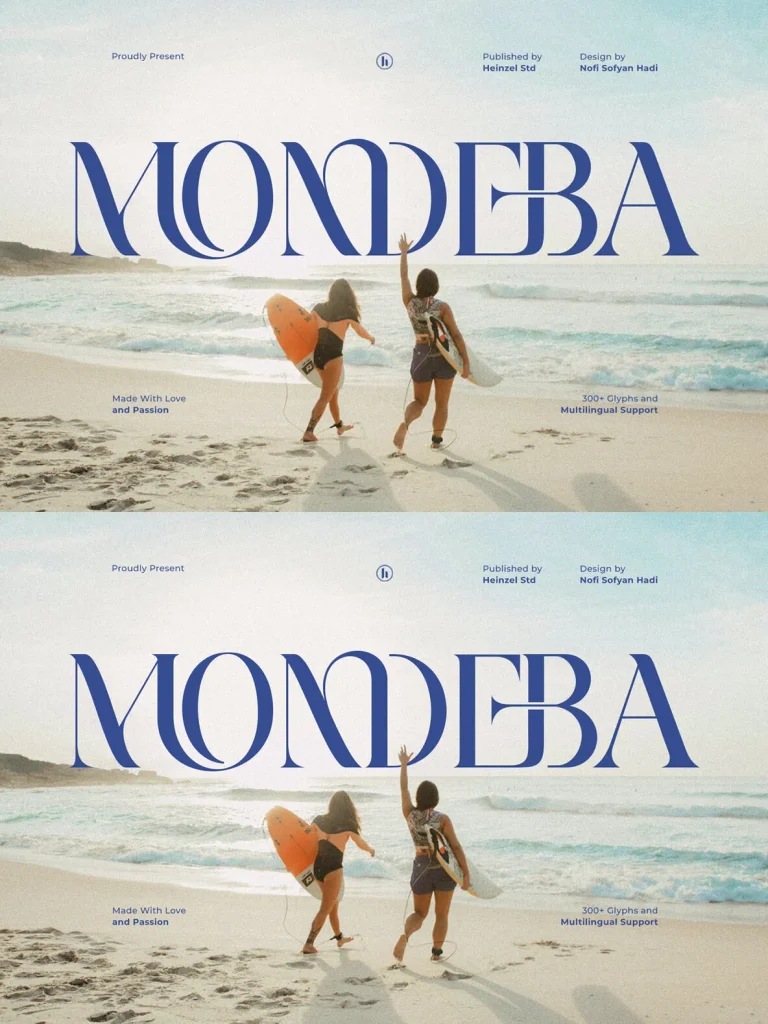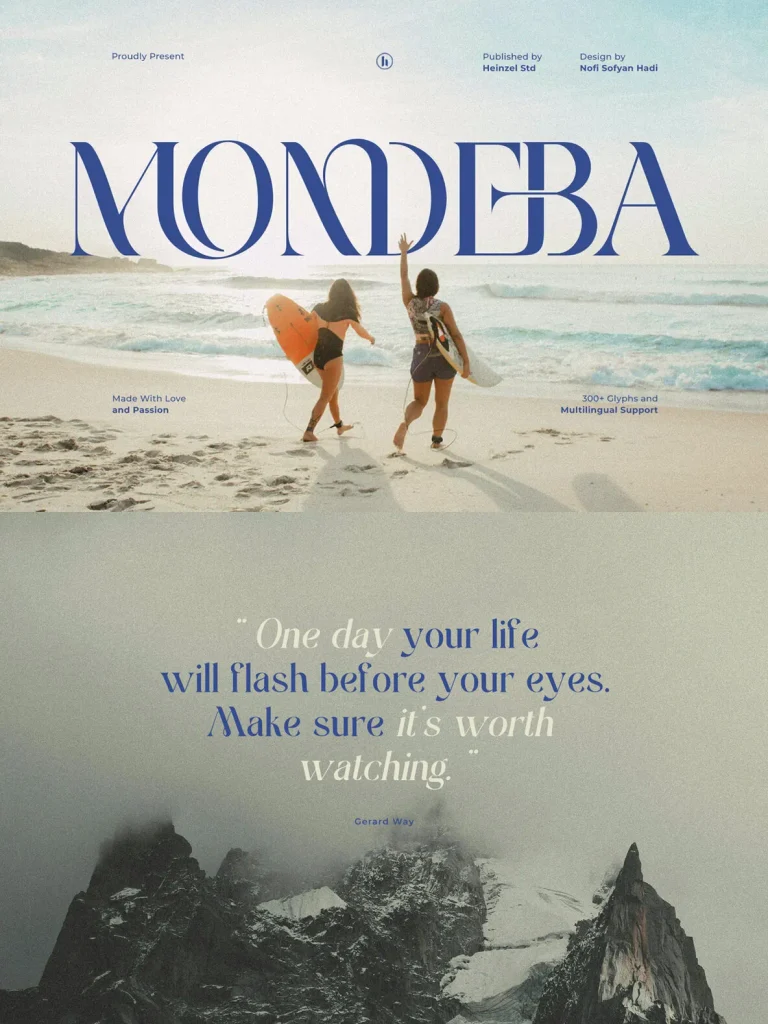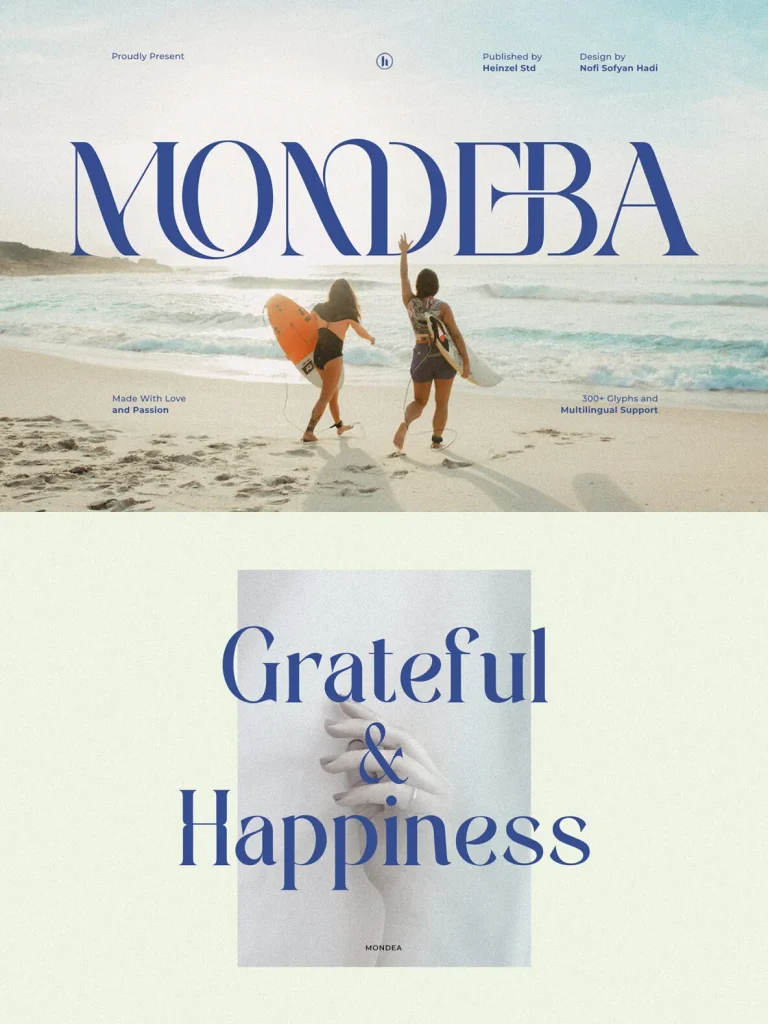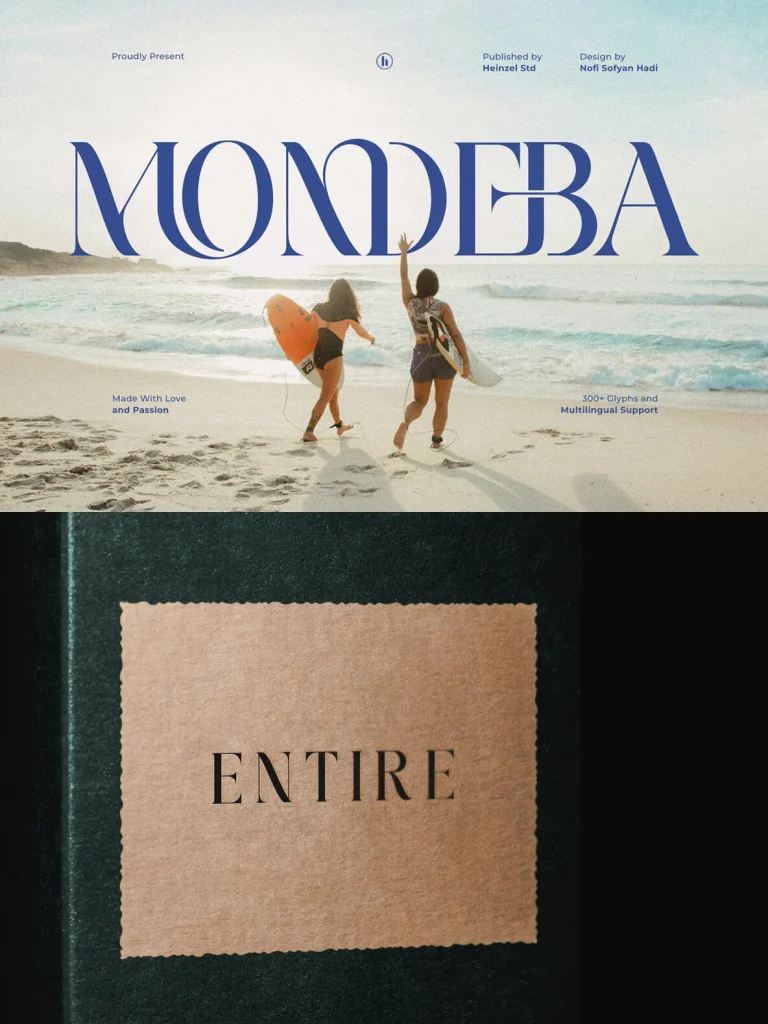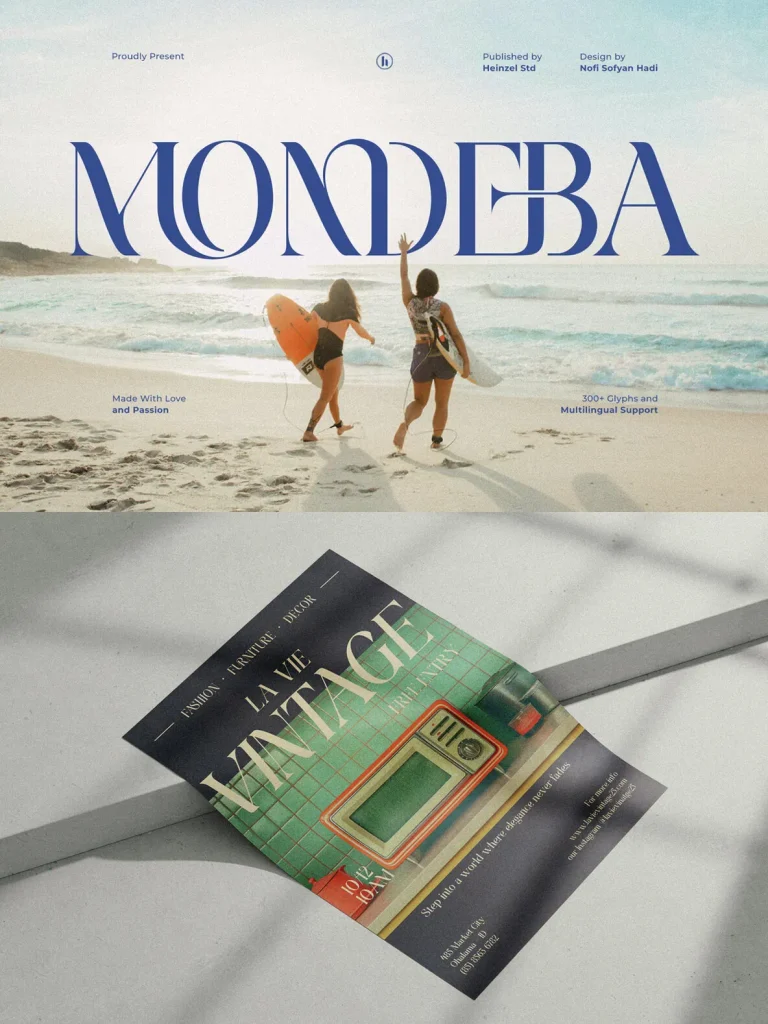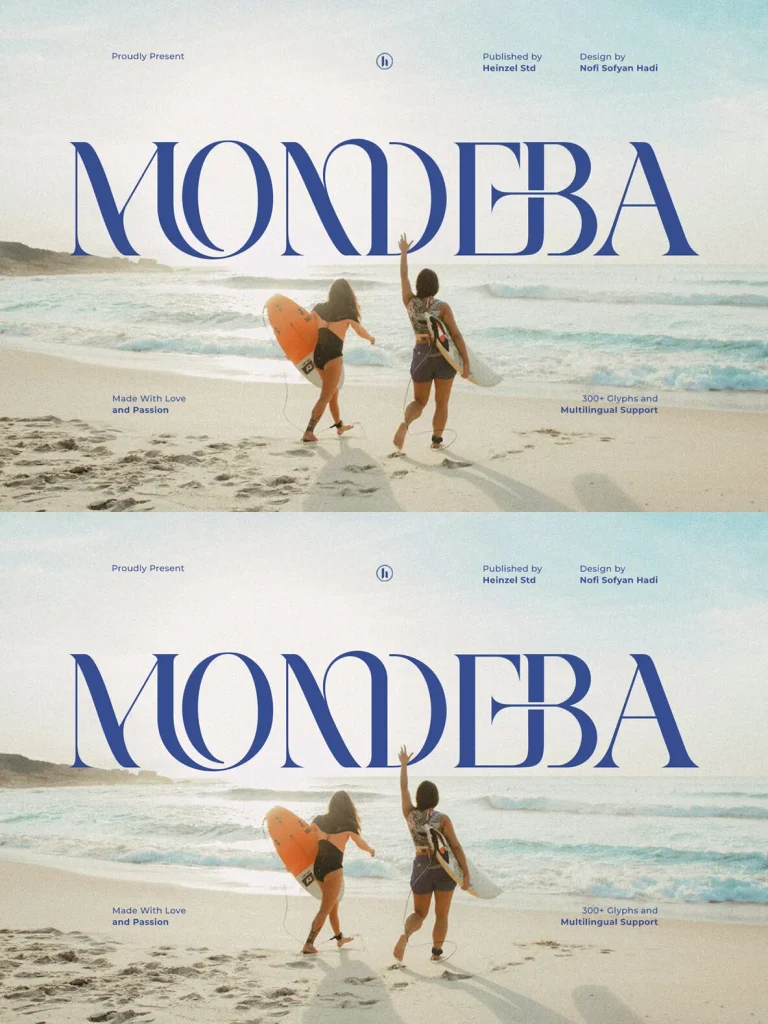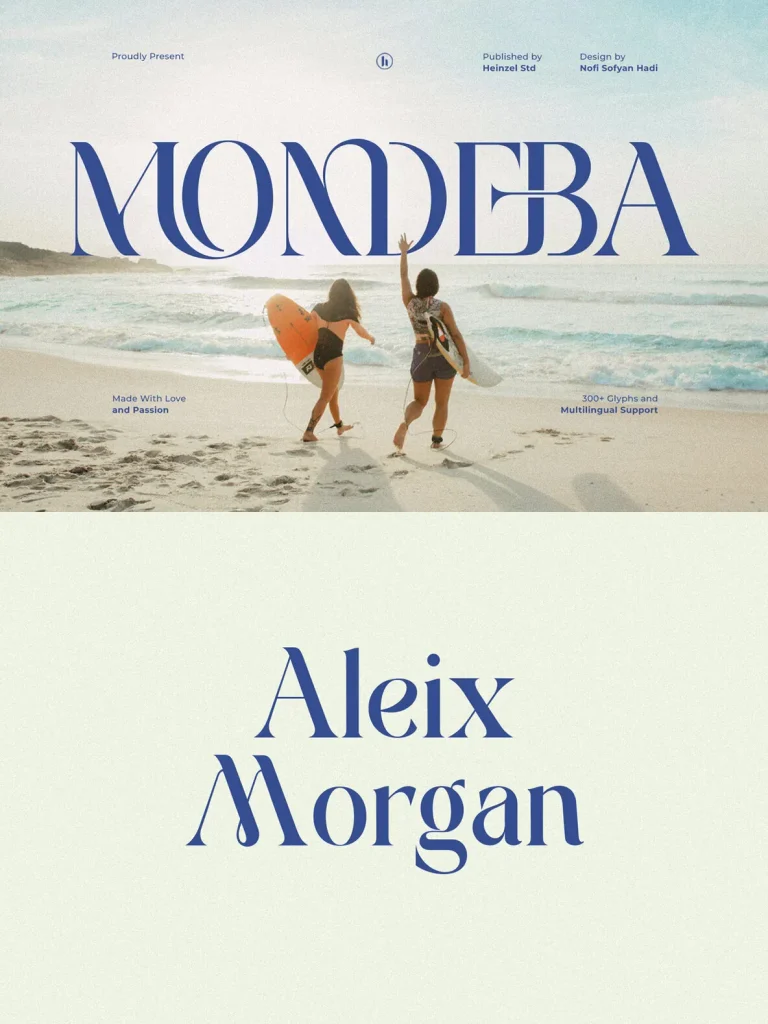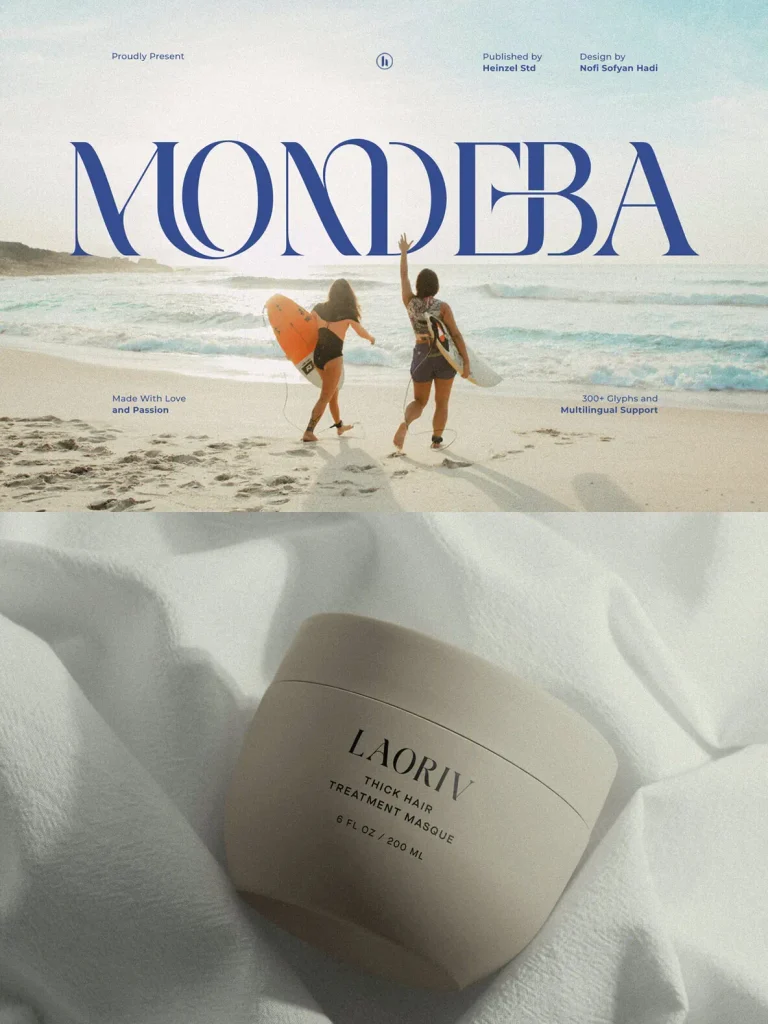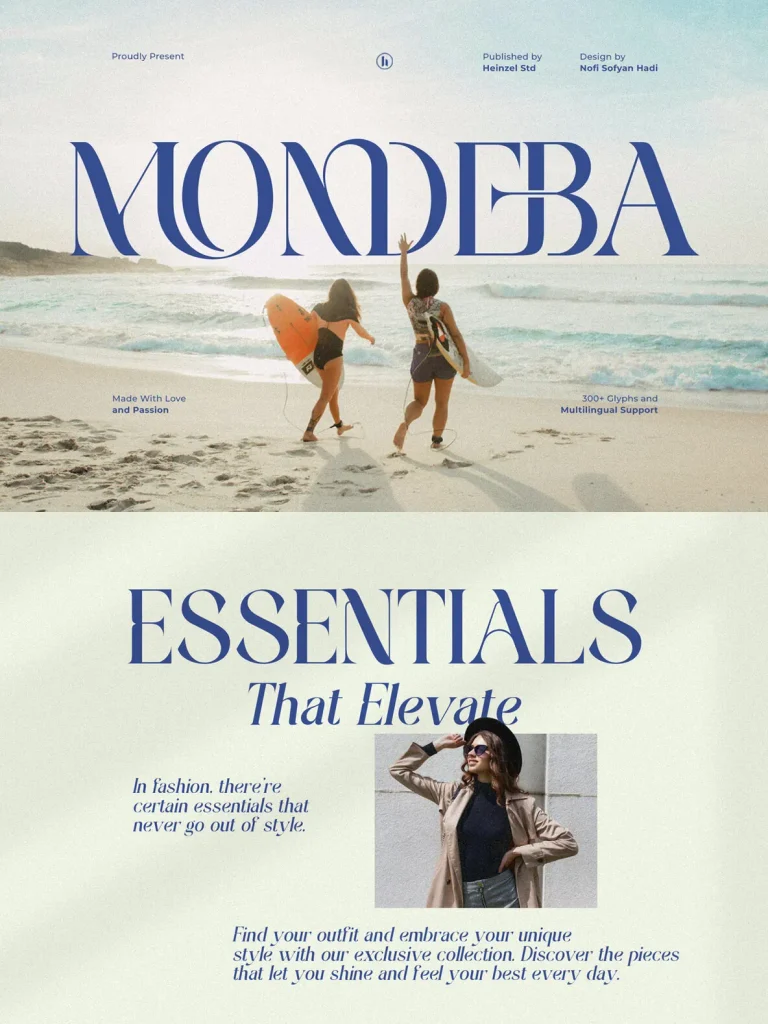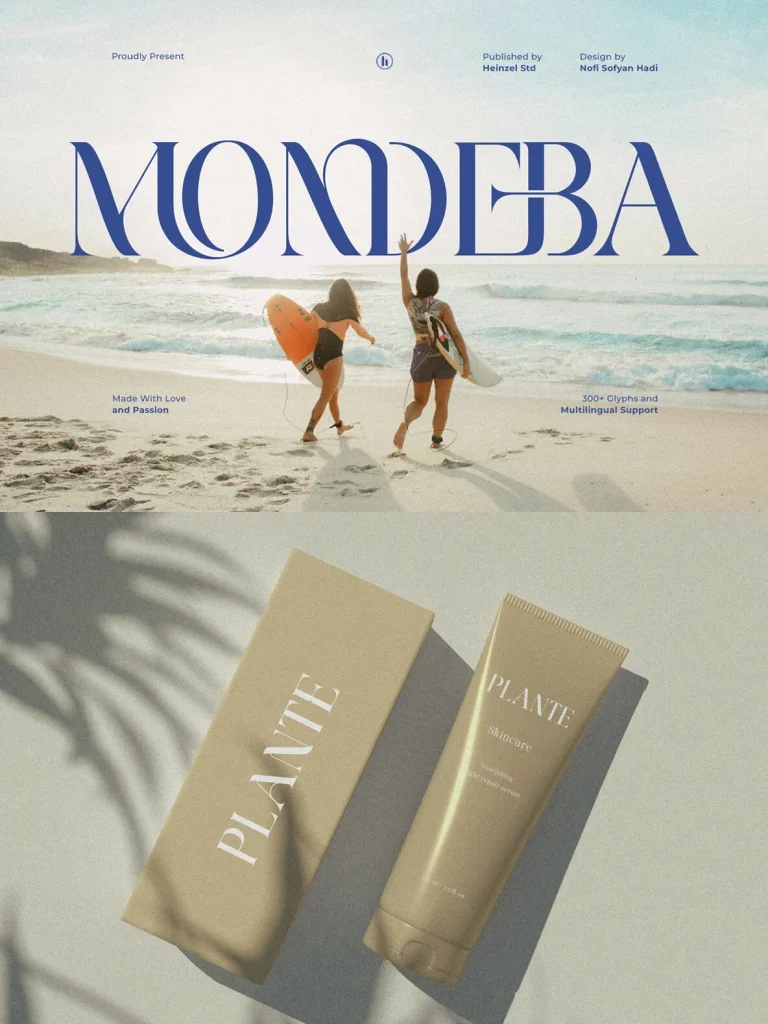
Mondeba — Grace With Polish
Mondeba is a modern serif font that blends timeless elegance with contemporary sophistication. Refined ligatures and stylish alternates give each word a graceful flow and a distinctive character, making the typeface well suited to design work that calls for poise, clarity, and visual refinement.
With balanced proportions and smooth curves, Mondeba is perfect for luxury branding, fashion editorials, magazines, logos, wedding designs, and high-end packaging. It delivers a polished, professional look while staying versatile across print and digital projects. For a serif font that feels modern, artistic, and premium, Mondeba is a strong choice for a memorable visual identity.